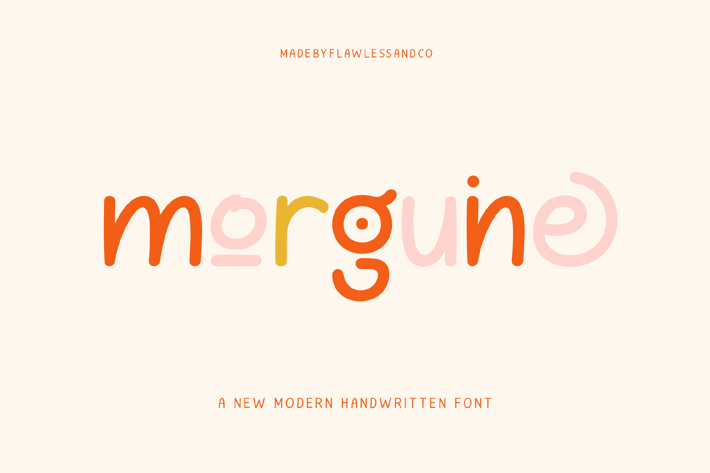
Morguine - Modern Handwritten Font
Introducing Morguine, a modern handwritten sans serif font that blends elegance with a natural touch. With its smooth strokes and contemporary feel, Morguine is perfect for branding, logos, social media, and creative projects. Add a stylish, personal touch to your designs with this beautifully crafted font!
Uppercase alphabet A-Z
Lowercase alphabet a-z
Alternate Character
Numbers 0-9
Some punctuation